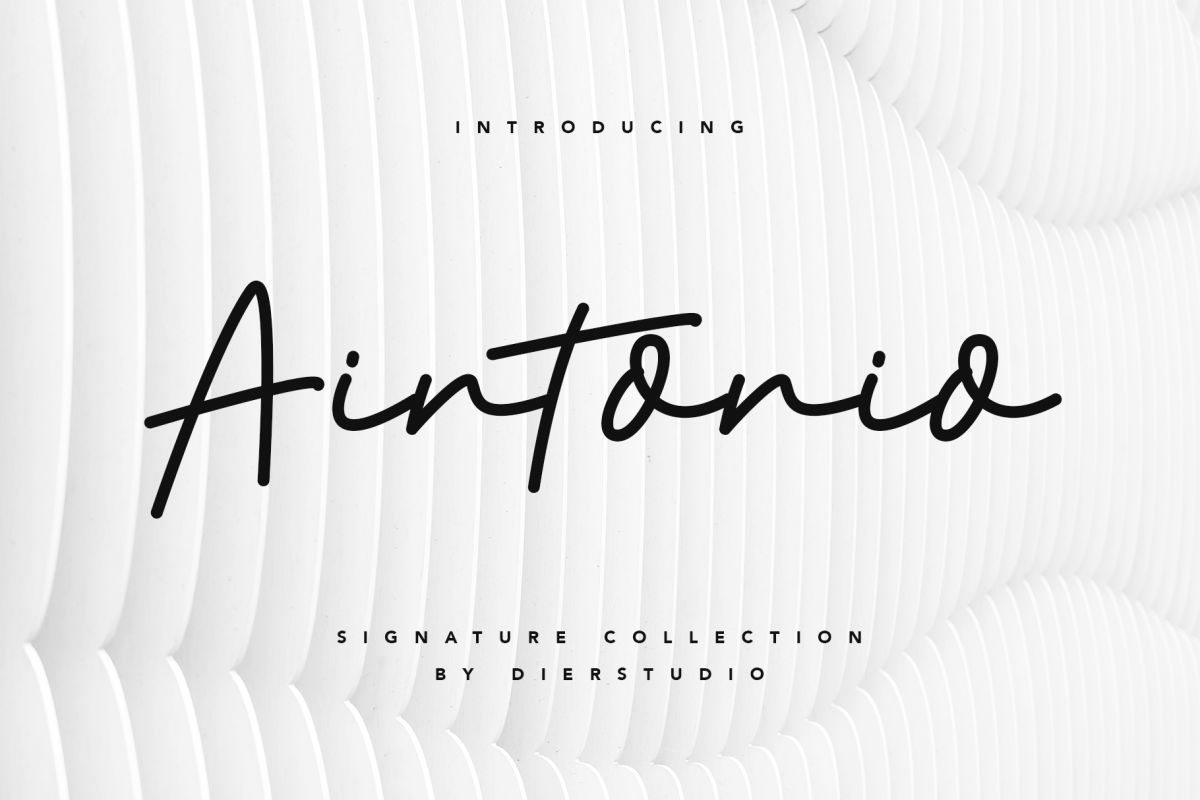
Aintonio
Aintonio is stylish and stunning signature typeface with personal touch movement which make your latest project looks amazing.
Aintonio is perfect for branding projects, logo, wedding designs, social media posts, advertisements, product packaging, product designs, label, photography, watermark, invitation, stationery and any projects that need handwriting taste.